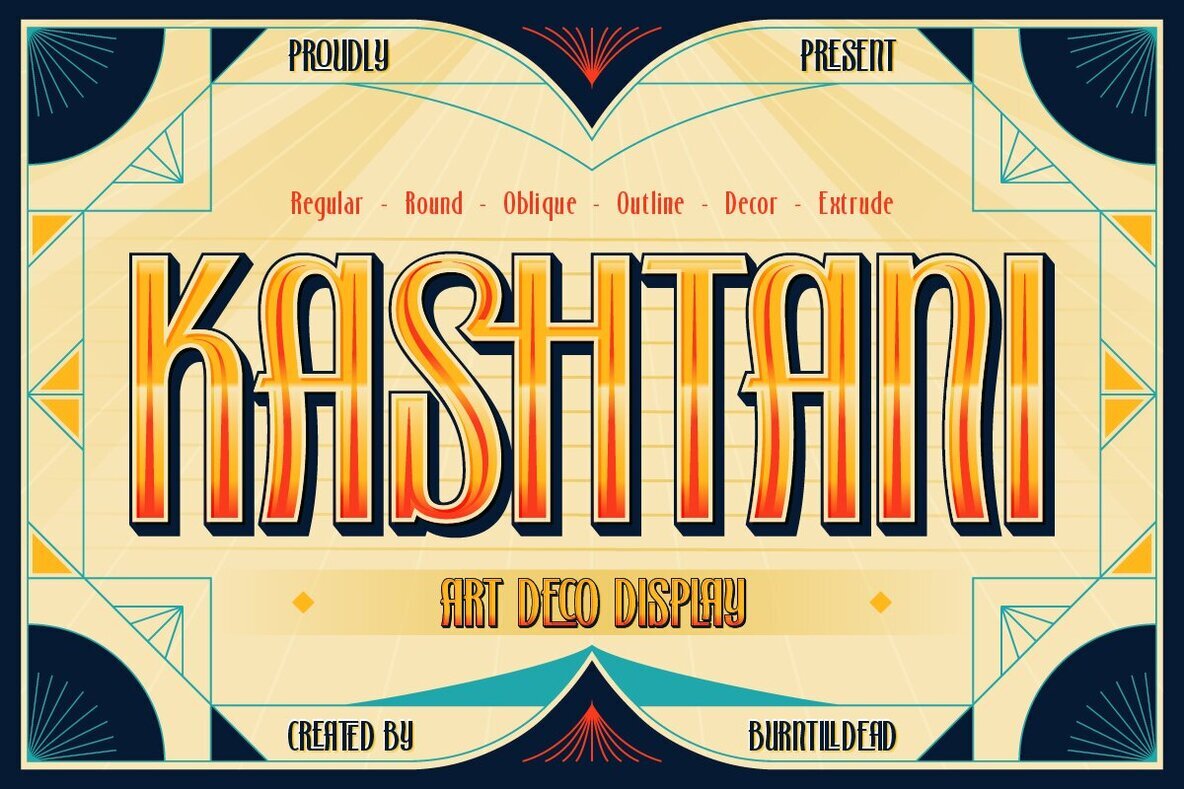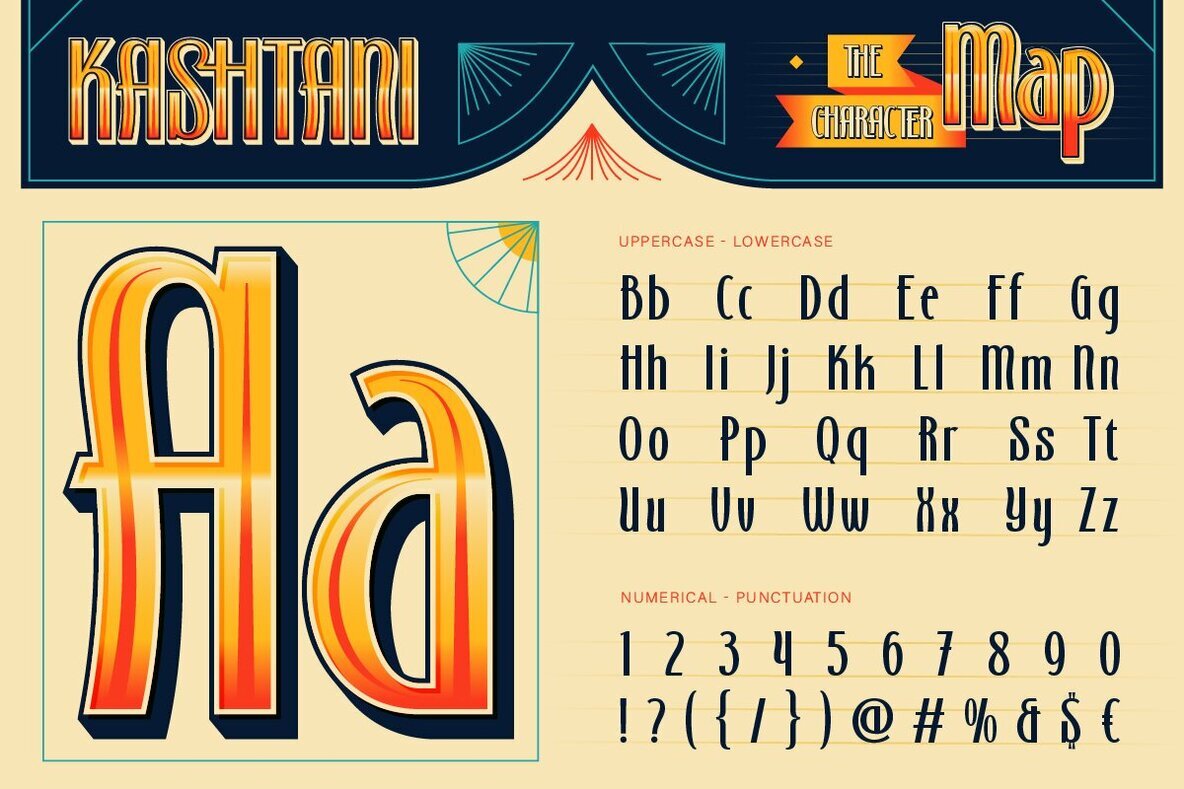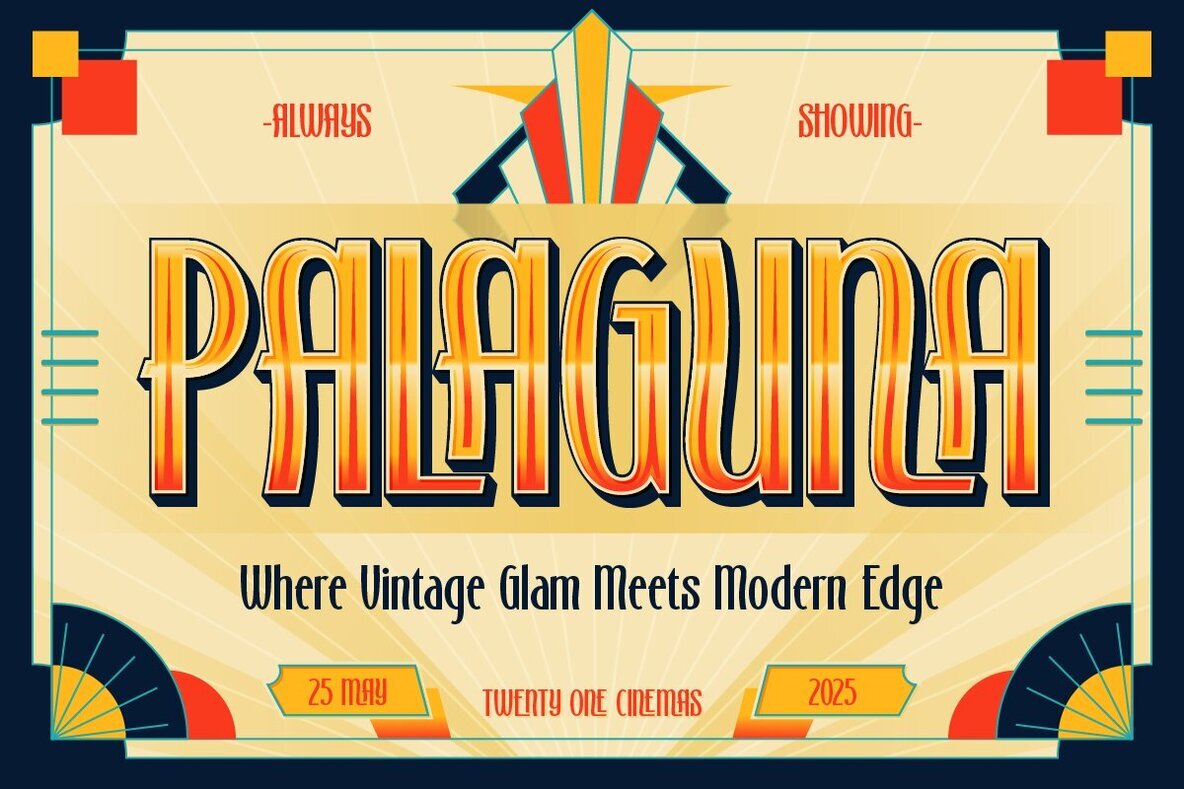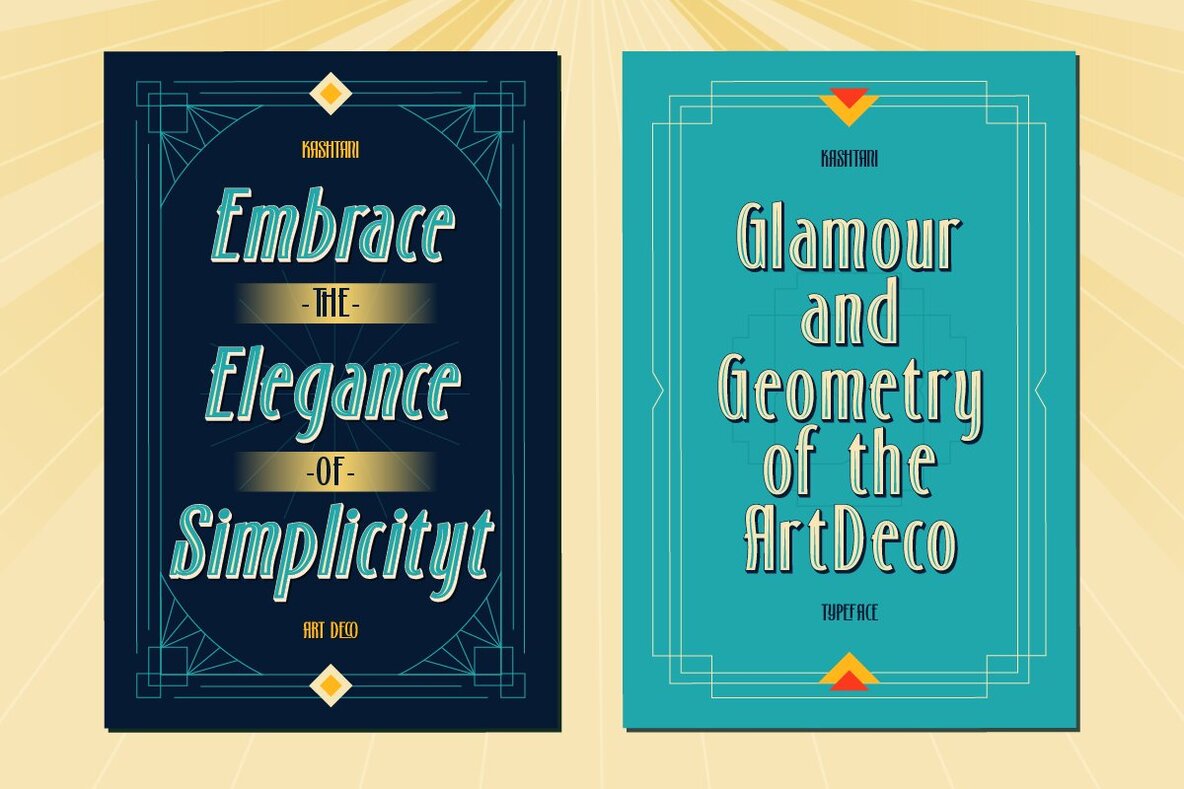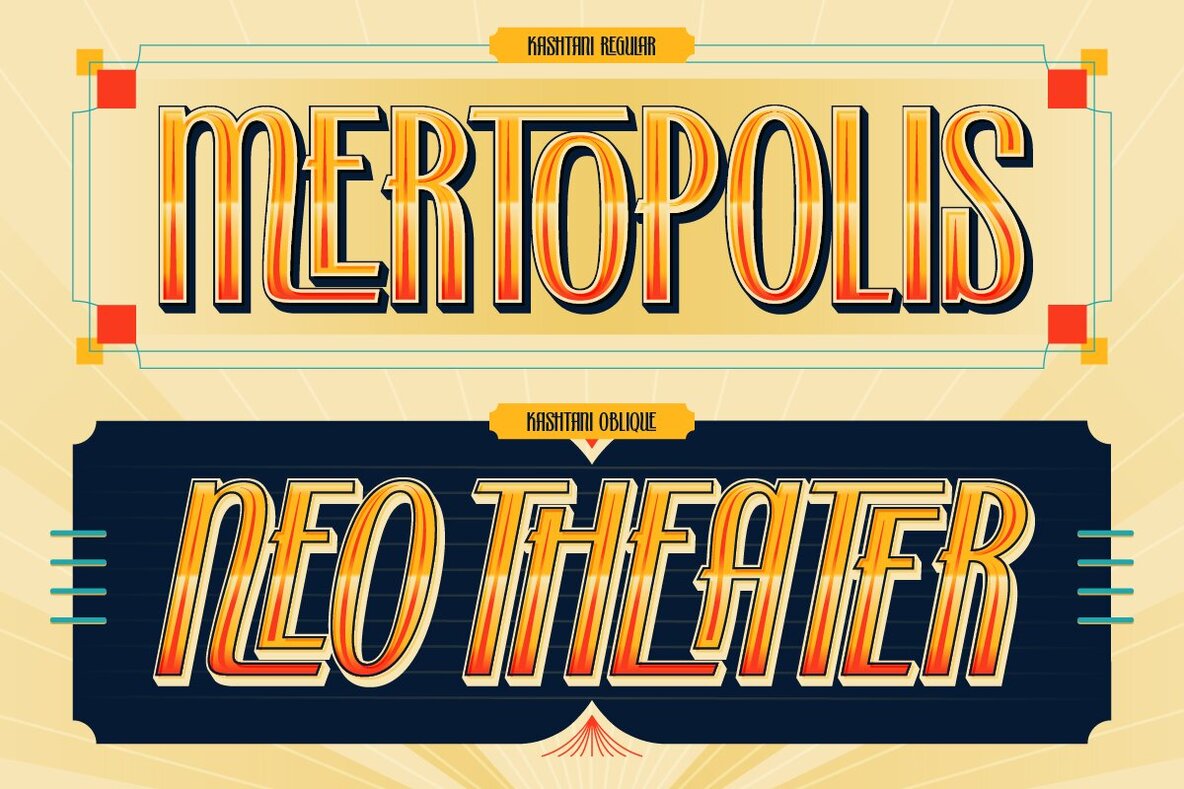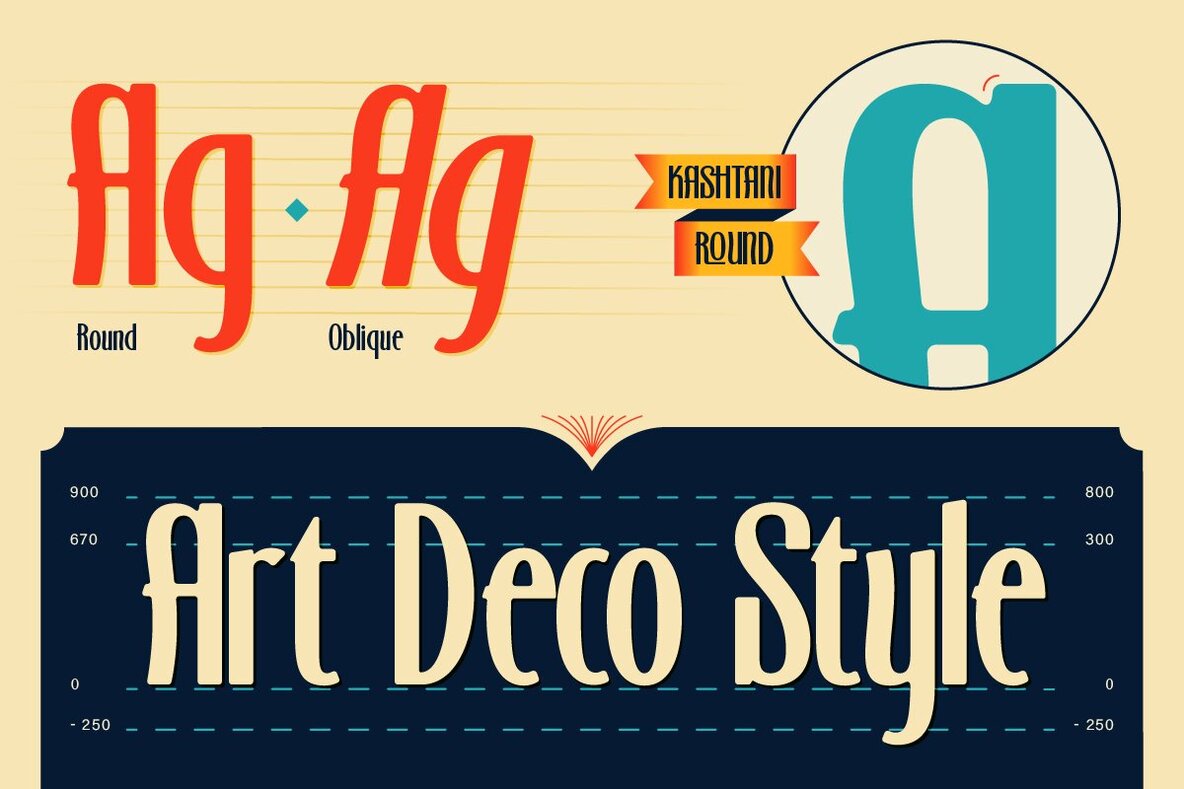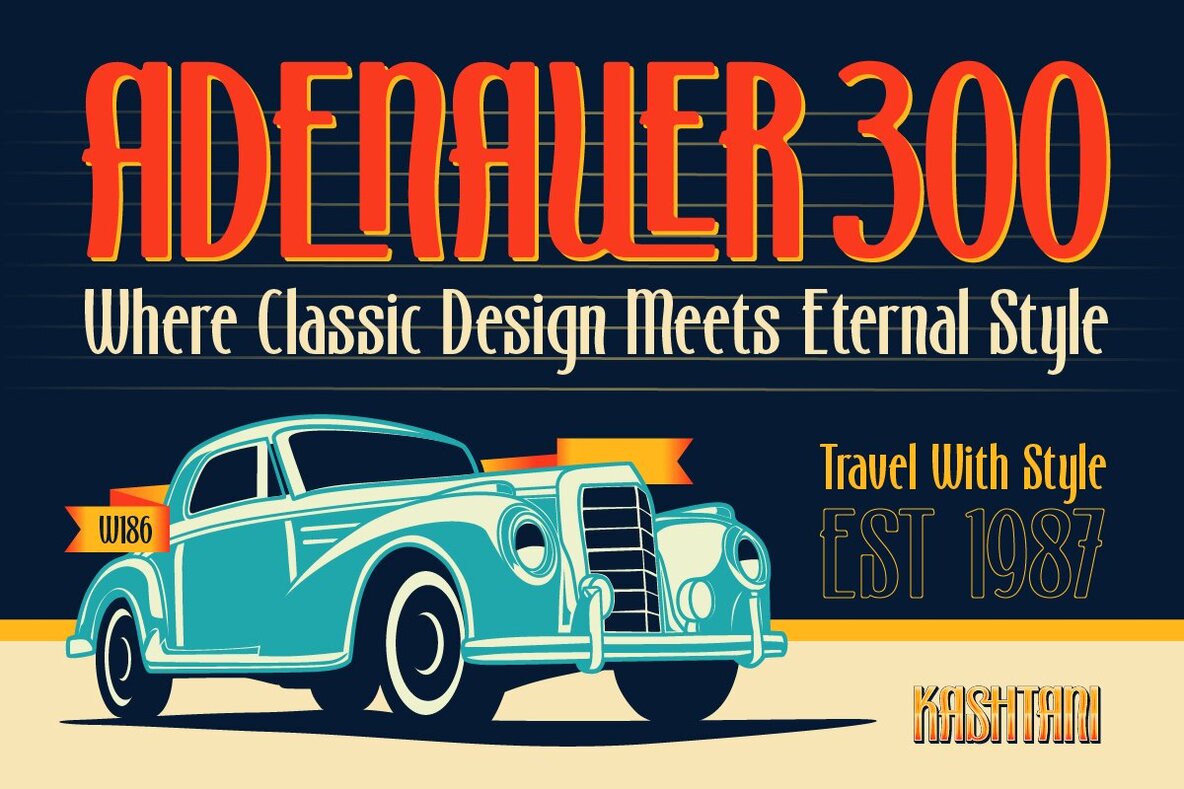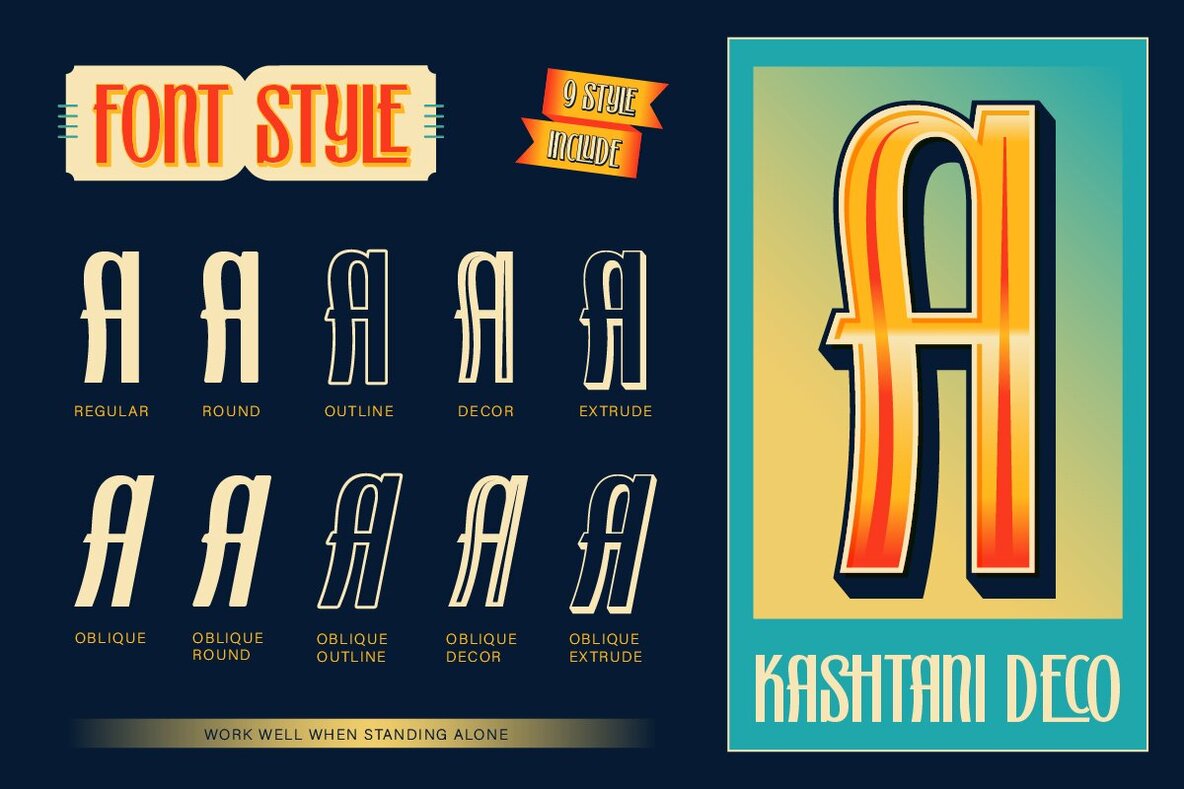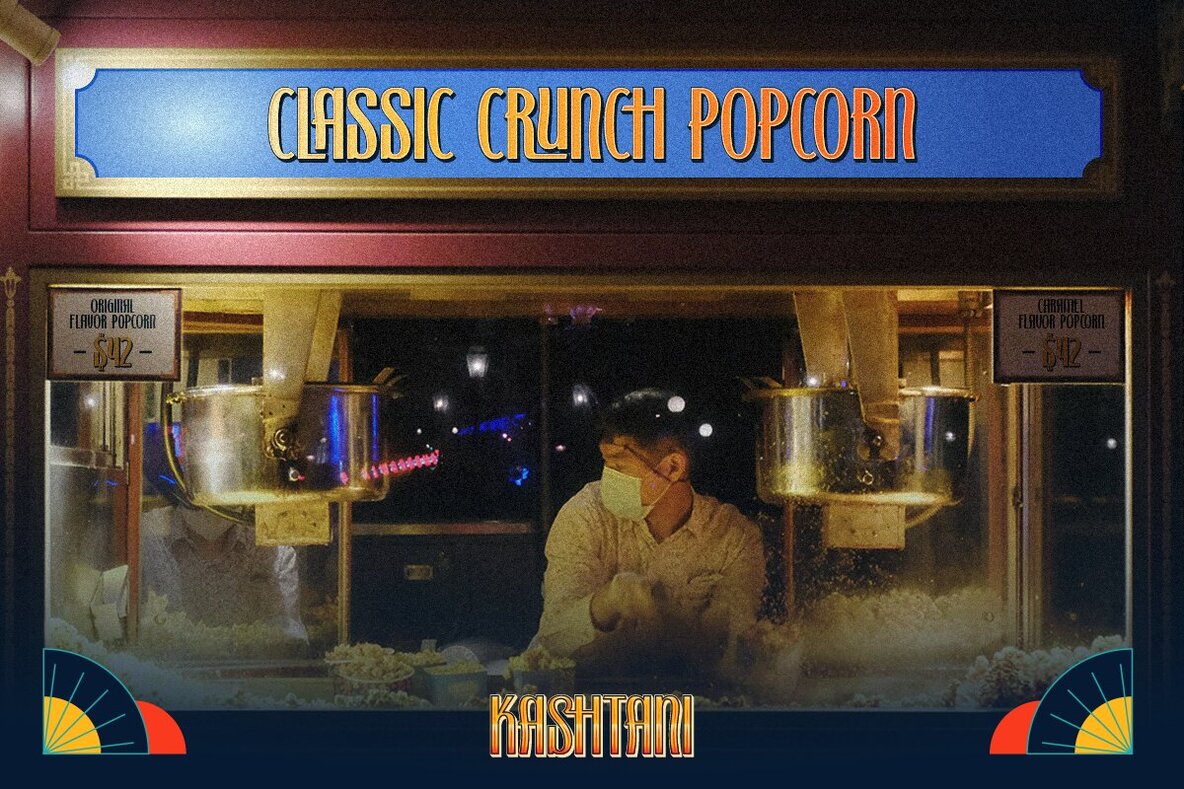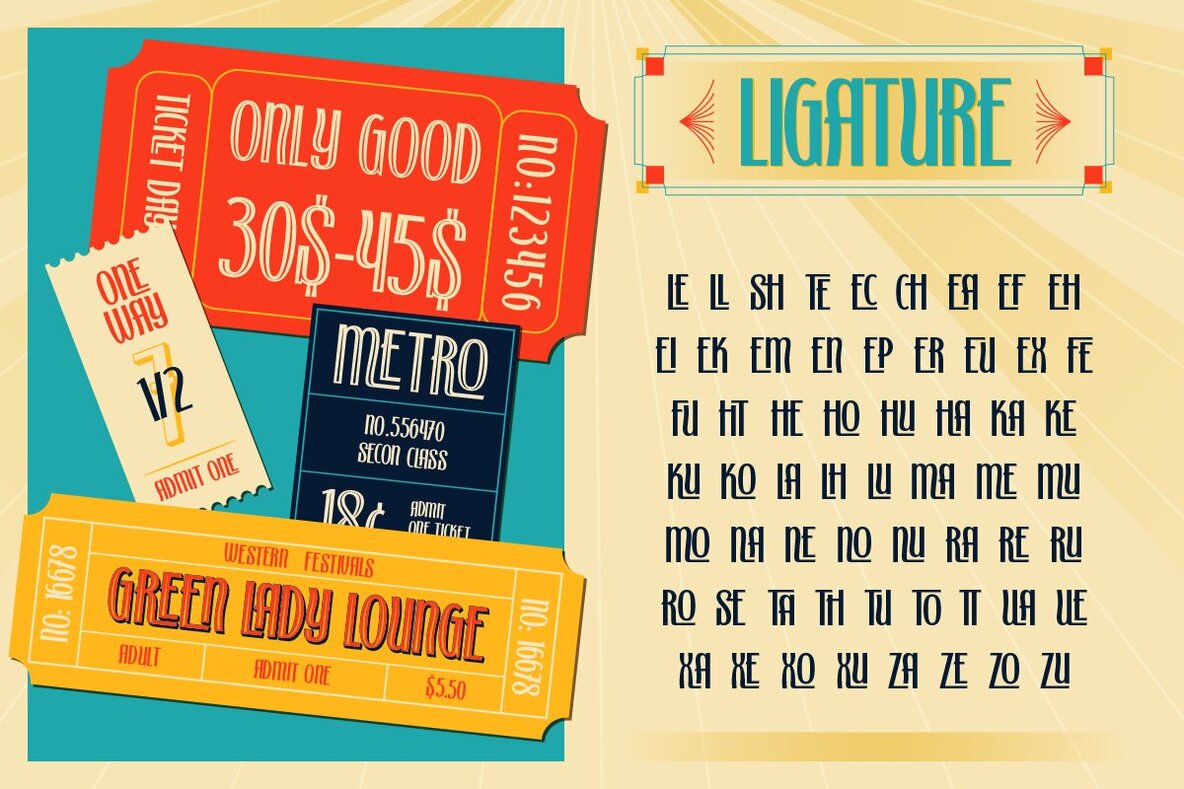
Kashtani Font
expand_font Kashtani Font Embrace vintage charm with Kashtani: an Art Deco font for modern creatives. Bold, classy, and full of design possibilities. Art Deco,Display,Retro,Poster,Logo,Decorative,Vintage,Old Style,Elegant Explore Exceptional Fonts for Digital and Traditional Media Fontpath offers a large variety of fonts for every designer, all at affordable prices and in multiple formats. Browse our best in class fonts today for all your creative needs, you can find everything you need right here at our site! Fonts,sans,sans serif,retro,script,decorative,title,FontPath 20140312040223 Fontpath offers 200,000+ of the most professional fonts found online, start downloading today! Real-Time Font Discovery at Fontpath